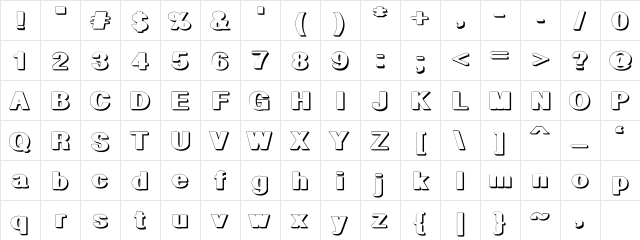
Complete geometric RegularShadow glyph index. Displaying only characters natively supported by geometric RegularShadow font.
geometric is built around its visual character rather than neutral utility - its distinctive forms are designed to make an impression at display sizes.
Font Pairing: Pair with a clean neutral sans-serif for body copy to let geometric's character lead without overwhelming the composition.
Pro Tip: Use geometric exclusively at display sizes - it was designed to be seen, not read at length. Let a neutral companion handle body copy.